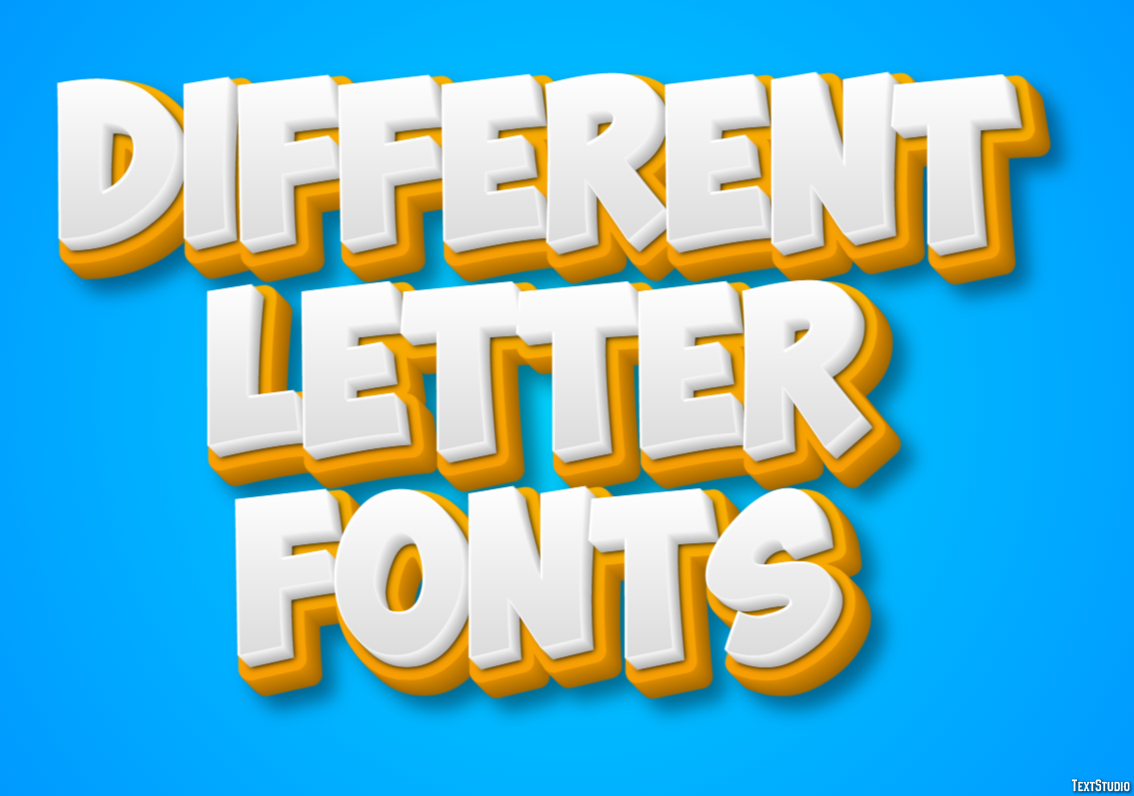
Yellow white 3D text
Different Letter Fonts Text Effect
Font effect designs Different Letter Fonts.
Transform your text into stunning 3D font styles with our innovative font generator. Create eye-catching effects in yellow or white, and say yes to captivating designs. Elevate your visuals with our easy-to-use tool, perfect for adding a touch of brilliance to any project.